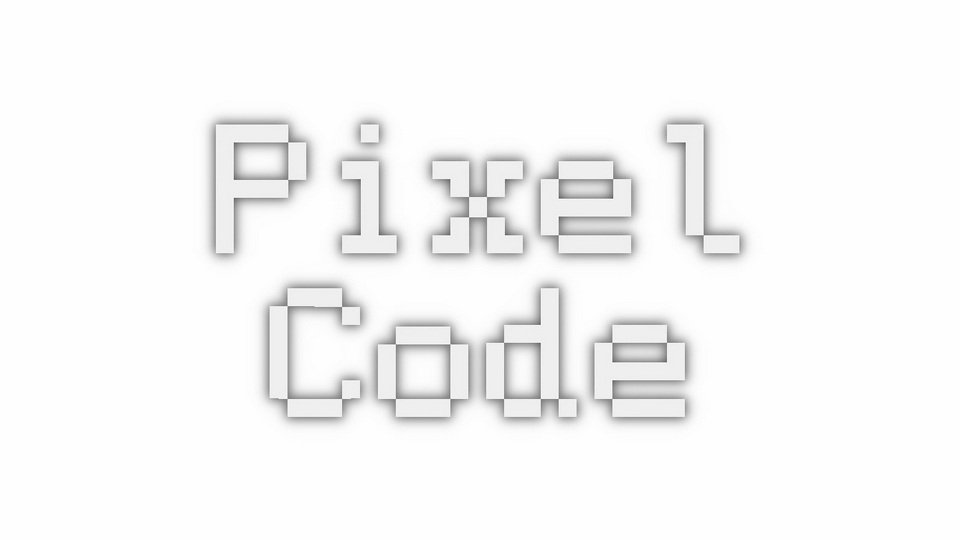
Download Pixel Code font, a monospace pixel art style programming typeface which is designed to maximize readability and code-friendliness, while sticking to a pixel grid. Each glyph of Pixel Code was carefully designed to be as legible as possible, with special consideration given to their roles in programming.
Designer: Qwerasd